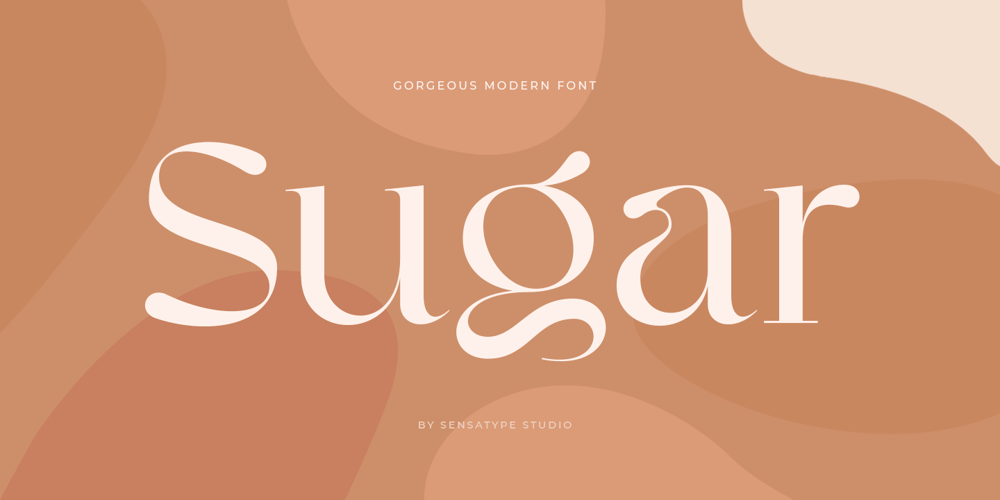
Sugar SS
Sugar SS font
Sugar SS Font Family was designed by Zamroni Hamzah and published by Sensatype Studio. Sugar SS contains 1 styles and family package options. Sugar is a Gorgeous Modern FontA new Display Serif that we created special for logo and branding needs, with extra unique shape that will add your brand value. It so nice to leverage designer or product owner that need solutions to make their design look more gorgeous and modern. And specially for Sugar font, We prepared any alternate characters to help you create unlimited variations for your creative needs specially for logotype or wordmark.Sugar Display Serif font ready with: Any options to get creative variations (combination of Alternates) Preview as a inspirations that you can do with Sugar font Ready with Lowercase and Uppercase characters Wish you enjoy our font. 🙂